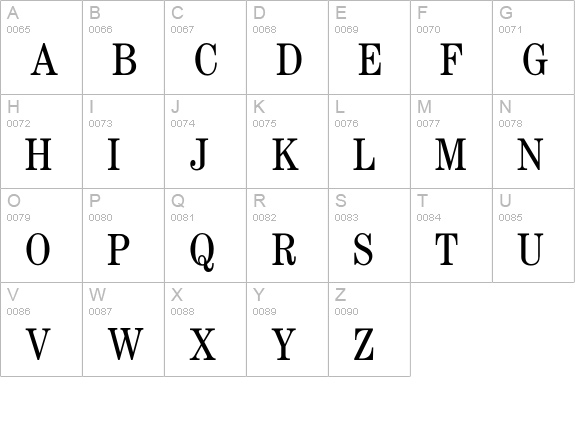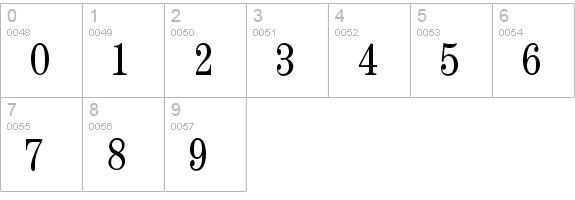
CenturyCondBook Font Details
CenturyCondBook is a sleek and modern font that exudes sophistication and elegance. Its condensed style makes it perfect for adding a touch of refinement to any design project. The clean lines and sharp angles of this font give it a contemporary feel that is perfect for both print and digital applications. One of the best things about CenturyCondBook is that it is completely free to download. You can easily access this stunning font at FontsMarket.com and start using it in your projects right away. With its timeless design and versatile appeal, CenturyCondBook is sure to become a staple in your font collection. Add a touch of class to your designs with this beautiful and freely available font today.